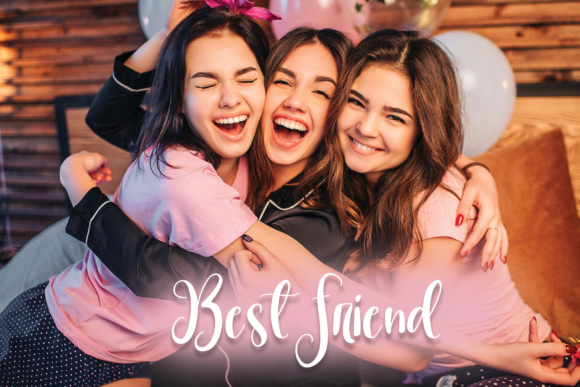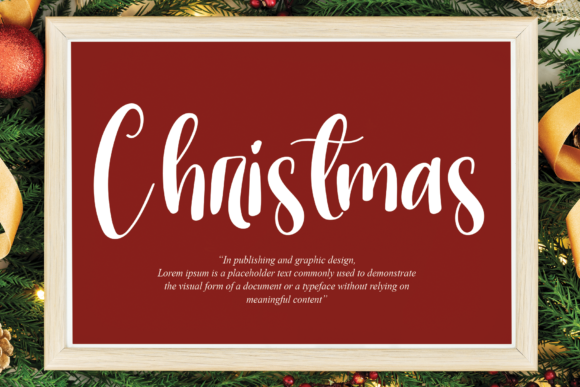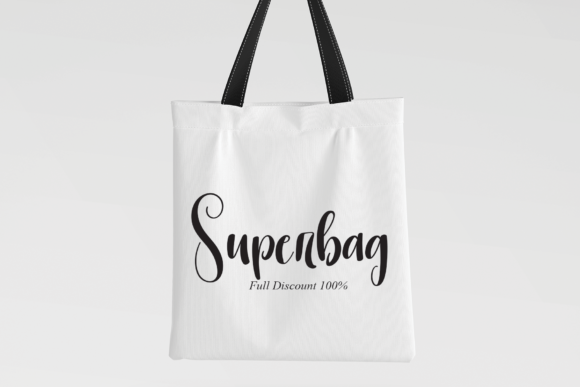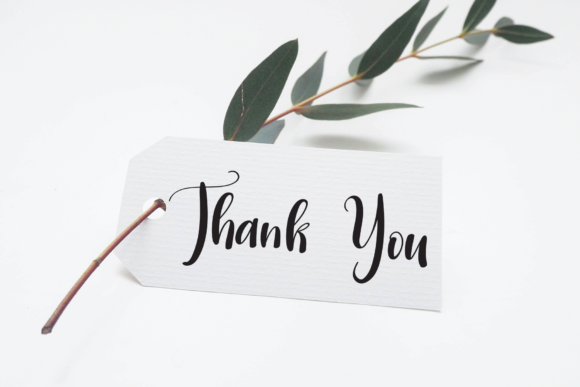
Introducing Christmas Farmhouse Font: A Festive Script Font for Your Holiday Projects
Are you looking for a font that captures the essence of the holiday season with a modern twist? Look no further than the Christmas Farmhouse Font. This festive script font is designed to bring a touch of elegance and sophistication to your holiday projects, while also evoking the cozy and welcoming atmosphere of a farmhouse during Christmas.
What Makes Christmas Farmhouse Font Special?
Christmas Farmhouse Font is a carefully crafted script font that boasts a contemporary atmosphere and impeccable form. The font is perfectly sized, balanced, and varied, making it ideal for a wide range of applications, from holiday greeting cards and invitations to festive packaging and web designs.
One of the standout features of Christmas Farmhouse Font is its unique blend of traditional and modern elements. The font’s script style is reminiscent of classic holiday fonts, while its clean lines and elegant curves give it a fresh and contemporary feel.
Key Features of Christmas Farmhouse Font
- Festive Script Style: Christmas Farmhouse Font features a beautiful script style that’s perfect for creating festive and eye-catching holiday designs.
- Contemporary Atmosphere: The font’s modern design and clean lines give it a fresh and contemporary feel that’s perfect for designers and crafters who want to create unique and stylish holiday projects.
- Impeccable Form: The font is carefully crafted to ensure that every letter and character is perfectly formed, making it easy to read and visually appealing.
- Varied and Balanced: Christmas Farmhouse Font is designed to be versatile and adaptable, making it perfect for a wide range of applications, from small-scale crafts to large-scale commercial projects.
Christmas Farmhouse Font is an ideal choice for designers and crafters who want to add a touch of festive flair to their holiday projects. Whether you’re creating holiday greeting cards, invitations, decorations, or gifts, this font is sure to impress.
For designers, Christmas Farmhouse Font is a great addition to your font library, offering a unique and stylish alternative to traditional holiday fonts. For crafters, this font is perfect for creating handmade holiday cards, gift tags, and decorations that are sure to delight.
Tips for Using Christmas Farmhouse Font
Here are a few tips for using Christmas Farmhouse Font in your holiday projects:
- Pair with Other Fonts: Experiment with pairing Christmas Farmhouse Font with other fonts to create a unique and eye-catching holiday design.
- Use for Headings and Titles: Use Christmas Farmhouse Font for headings and titles to add a touch of festive flair to your holiday projects.
- Add Decorative Elements: Consider adding decorative elements, such as holly leaves or snowflakes, to enhance your holiday design and make it more festive.
Christmas Farmhouse Font is a beautiful and versatile script font that’s perfect for designers and crafters who want to add a touch of festive flair to their holiday projects. With its unique blend of traditional and modern elements, impeccable form, and contemporary atmosphere, this font is sure to impress.